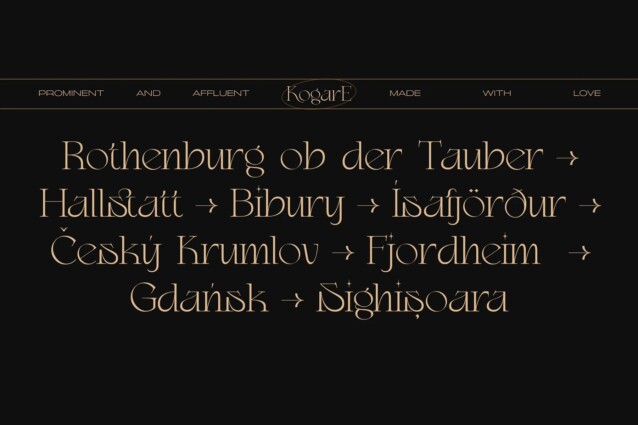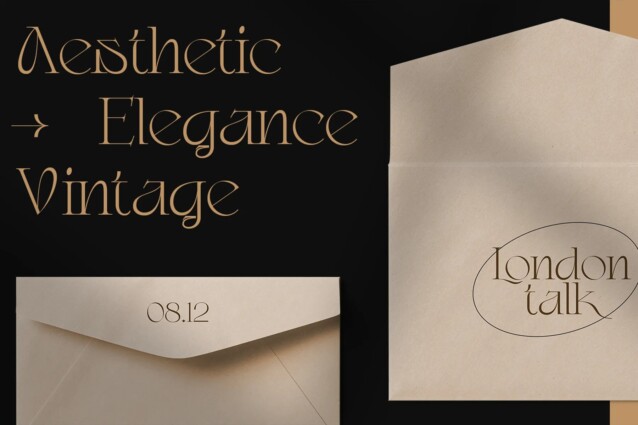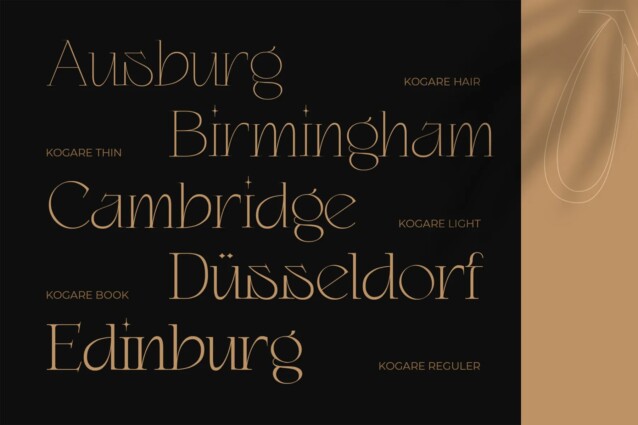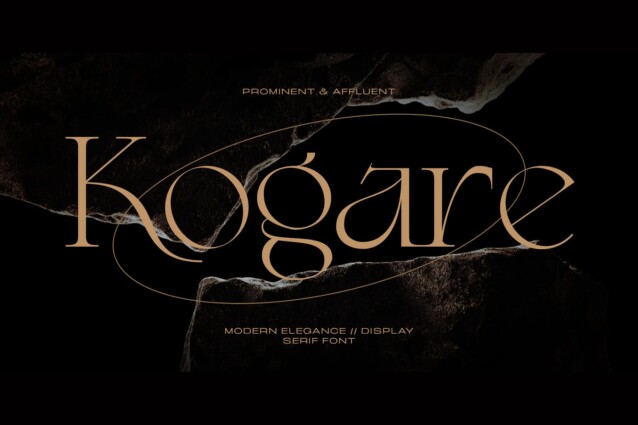
Kogare Font
Kogare Font is a modern and elegant serif font that is perfect for adding a touch of sophistication to your designs. Drawing inspiration from the timeless charm of classic serif writing, Kogare seamlessly marries tradition with modernity, offering a font that’s both timeless and contemporary. With Kogare, you’ll embark on a journey through the rich heritage of serif fonts. Its every curve and stroke has been thoughtfully designed to reflect the grace and sophistication that typifies classic typography. Yet, it also incorporates modern elements that make it versatile for a wide range of creative applications.